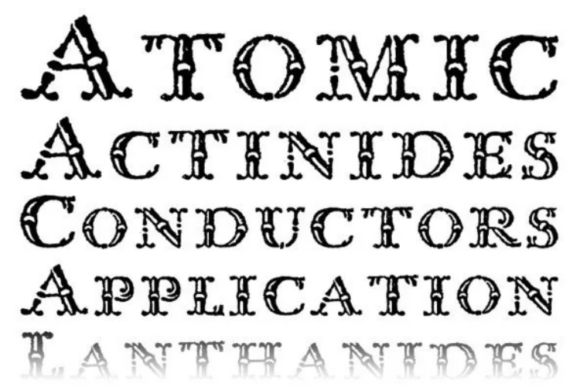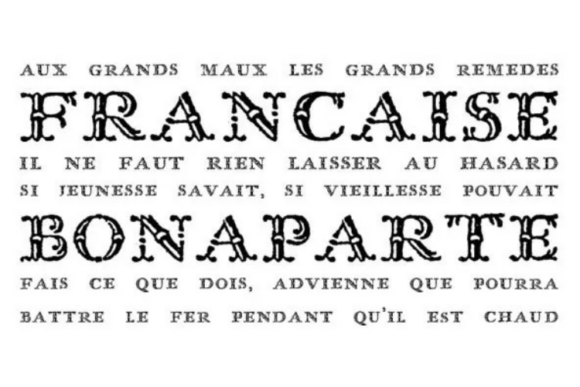
Introduction to Imprenta Font
Imprenta is an ancient font found in the rare book “Muestras de los Punzones y Matrices de Letra que se funde en el Obrador de la Imprenta Real, Madrid, Ano de 1799”.
The original sample has only 33 letters That letters were the start of this enhanced version with 223 glyphs.